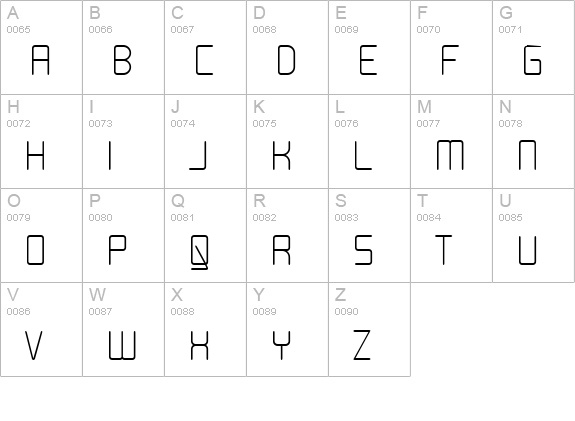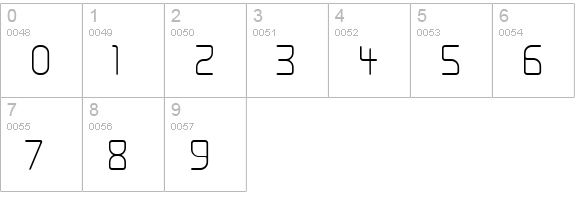
Moondog Zero Font Details
Moondog Zero font exudes a perfect blend of elegance and modernity, making it an ideal choice for a wide range of design projects. This unique font features sleek lines and a contemporary style that will captivate any audience. With its bold and eye-catching appearance, Moondog Zero font is sure to make a striking impression in any design. What sets Moondog Zero font apart is not only its stunning visual appeal but also the fact that it is available for free. Yes, you read that right - this exceptional font can be downloaded for free at FontsMarket.com. Whether you are working on a logo, website design, or any other creative project, Moondog Zero font is a versatile option that will elevate your work to the next level. Embrace the beauty and sophistication of Moondog Zero font today and unleash your creativity with this amazing free font. Download it now at FontsMarket.com and start creating stunning designs that will leave a lasting impact.